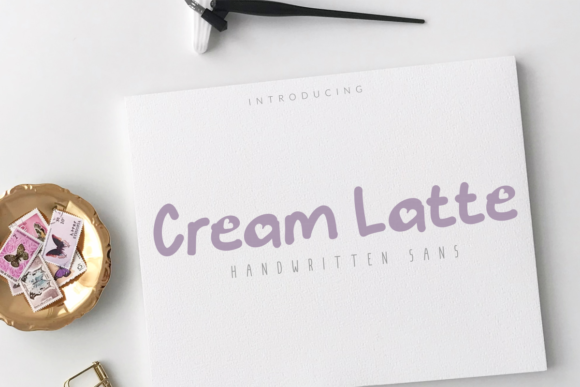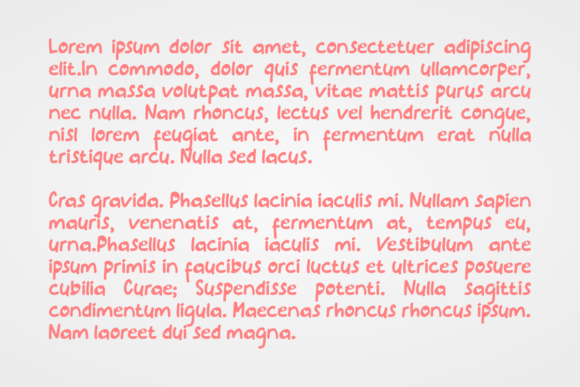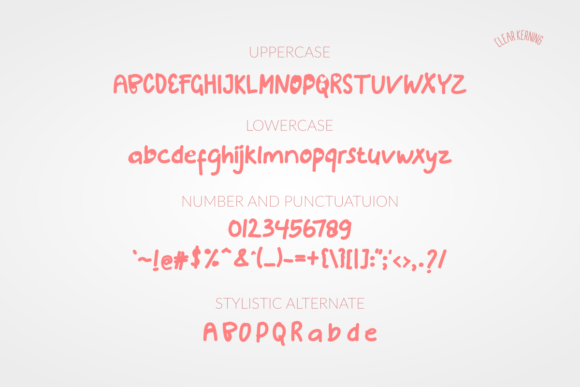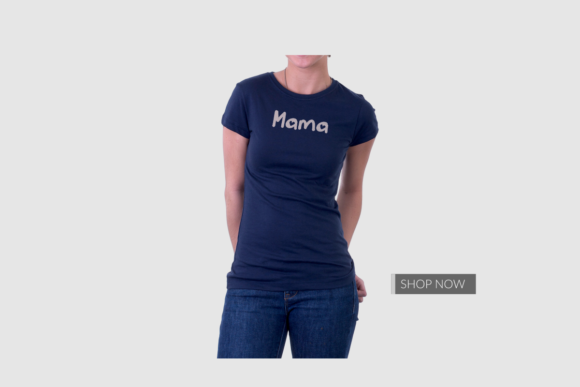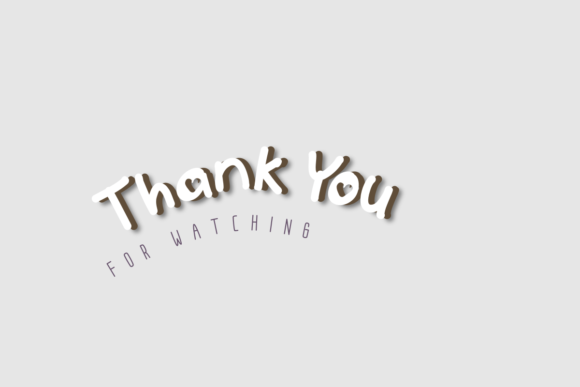
HomeScript FontsCream Latte Font Script Fonts Cream Latte Font FacebookXPinterestWhatsApp Cream Latte Font Poster 2 Cream Latte Font Poster 3 Cream Latte Font Poster 4 Cream Latte Font Poster 5 About Cream Latte Font Cream Latte is a lovely handwritten font. It has a unique look and it’s perfect for any kids project! DOWNLOAD NOW People also explored Fall Font Gladiora Font Black and White Christmas Font Rollasan Font Wheat Font Tokiyo Medium Font Angela Lovely Font Life is Font 287 0 TagsCream Latte Font Previous articleMagic Butter FontNext articleWatermelon Jelly Font LEAVE A REPLY Cancel reply Comment: Please enter your comment! Name:* Please enter your name here Email:* You have entered an incorrect email address! Please enter your email address here Website: Save my name, email, and website in this browser for the next time I comment. Personal Use Free Santhony Personal Use Free Read more about this font BD Nokio Personal Use Free Read more about this font Arc Personal Use Free Read more about this font Spring Personal Use Free Read more about this font BLOG Elegant Wedding Invitation Fonts – Handwritten & Script Fonts Elegant Wedding Invitation Fonts Your wedding day is one of the most important moments of your life, and every detail matters—including your invitation design. Our... Where to Buy American Fonts Online in 2024 Best Fonts for YouTube Videos: Make Your Thumbnails Stand Out Using Fonts in Digital Marketing: Tips to Strengthen Your Brand Identity